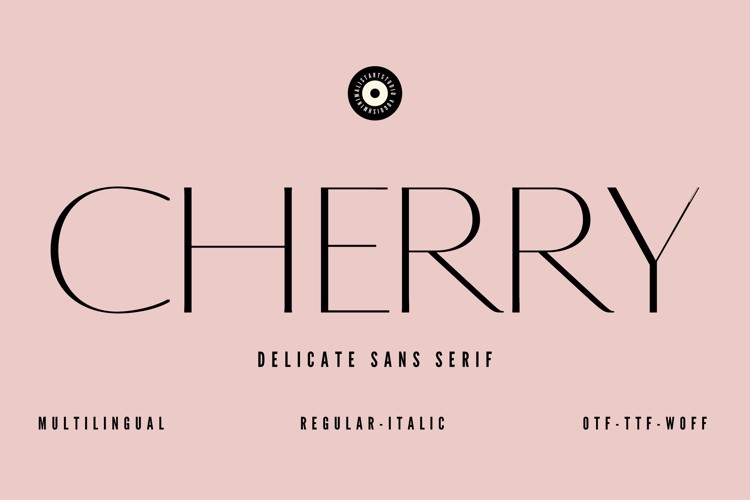
CHERRY Font
🎨 Font Name: Cherry by Minimalist Art Studio
🎨 Font description: Cherry is a delicate sans serif with multilingual support—ideal for feminine branding, minimalist packaging, and editorial elegance.